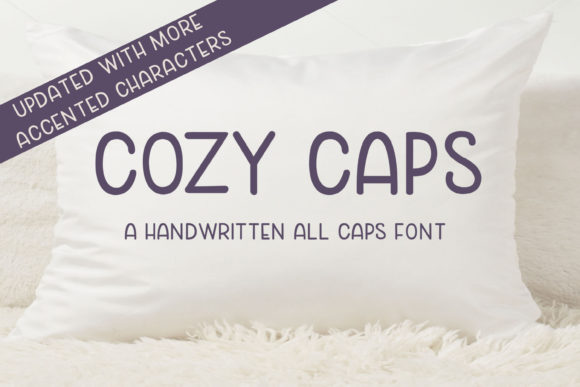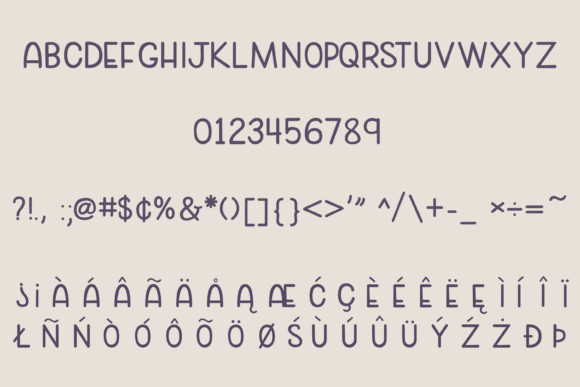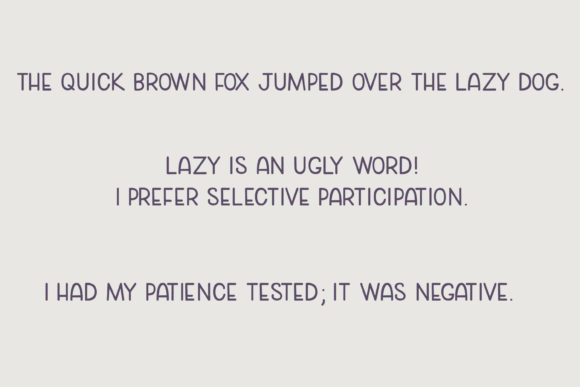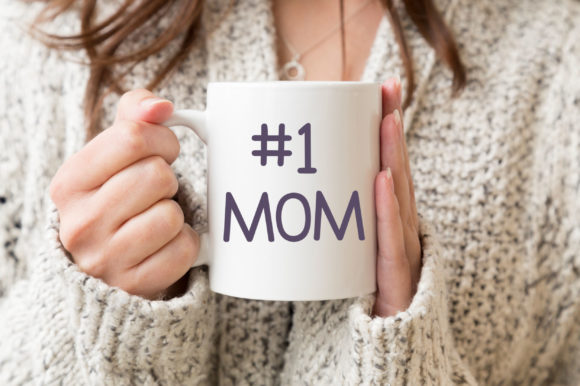
Cozy Caps Font: Cute & Down-to-Earth Sans Serif for Crafts & DIY
About the Cozy Caps Font
Unleash your creativity with Cozy Caps Font, a versatile font perfect for a wide range of applications. Cozy Caps is a casual sans-serif font with an authentic vibe. It will give your designs a down-to-earth feel.
Its relaxed, rounded forms make Cozy Caps ideal for headlines, short text blocks on posters or packaging, and branding applications where a friendly, approachable aesthetic is desired. It works particularly well for projects related to food, crafts, or small businesses emphasizing a handmade or artisanal quality. Avoid using it for body copy or long paragraphs; the casual nature can become visually tiring at smaller sizes.
Consider pairing Cozy Caps with a clean sans-serif like Open Sans for a balanced contrast, or a playful script font like Pacifico for a more whimsical feel. For a more modern approach, a geometric sans-serif like Montserrat would provide a sophisticated counterpoint. The overall personality of Cozy Caps is best described as friendly and approachable, with a touch of rustic charm.
Cozy Caps Font Usage Examples
Cozy Caps Font Example